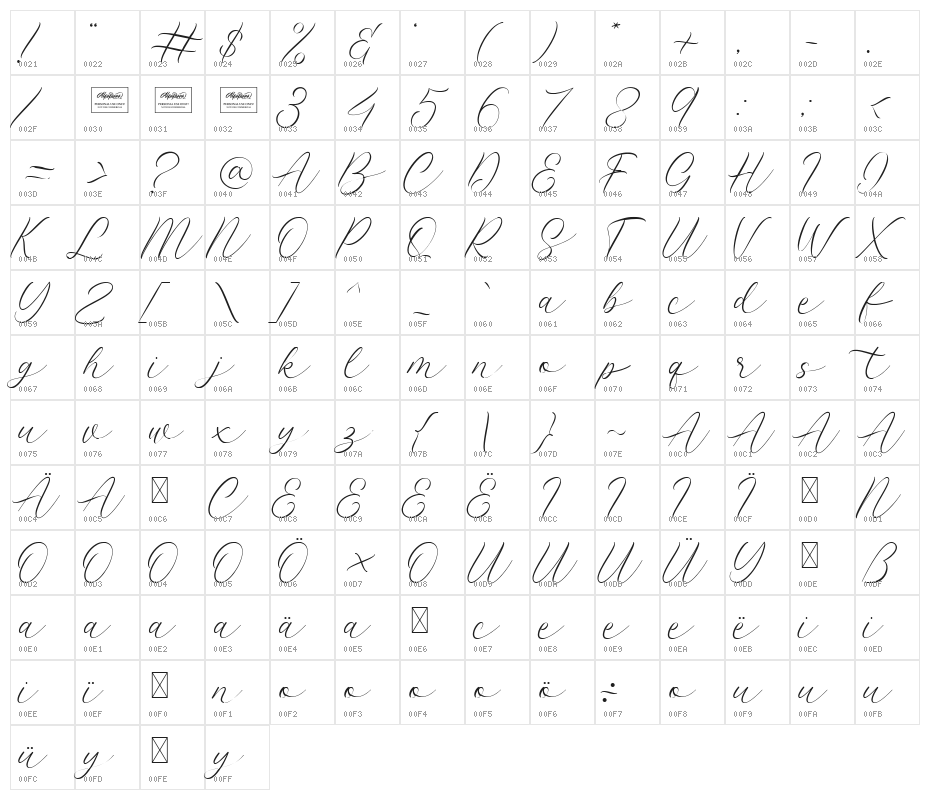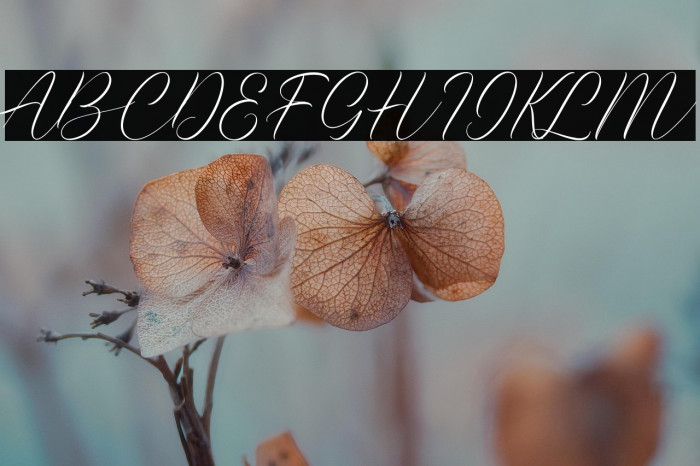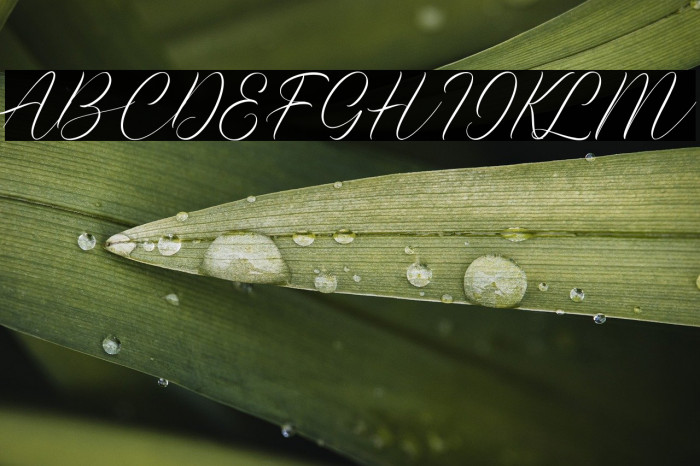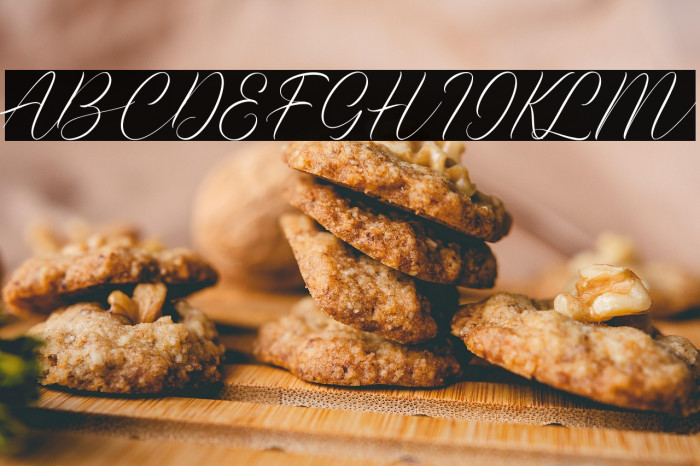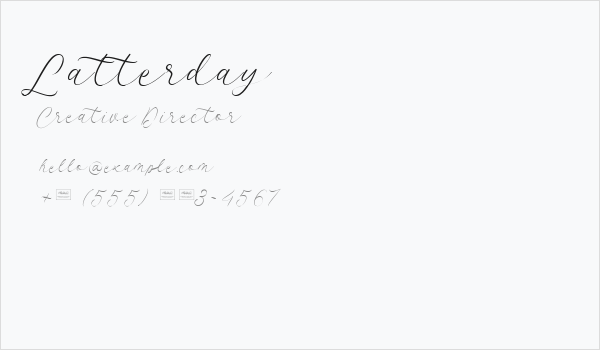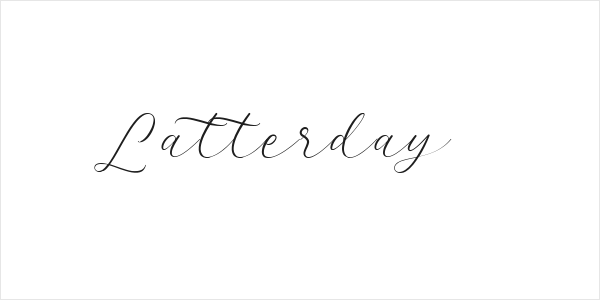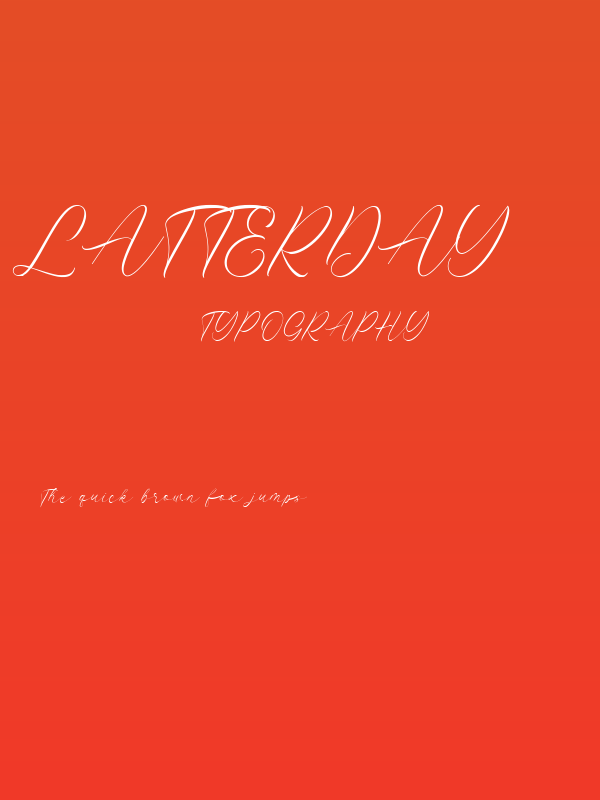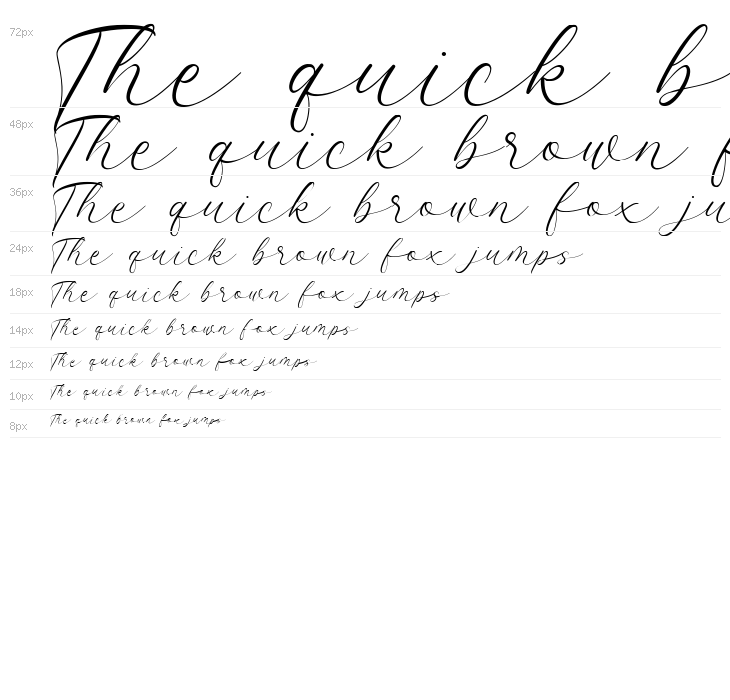
Latterday Font
Latterday Description
This elegant script font features flowing, cursive letterforms with a graceful and sophisticated appearance. The uppercase letters are slightly more ornate, with sweeping curves and delicate loops, while the lowercase letters maintain a consistent fluidity. The numerals are designed to complement the script style, offering a harmonious balance. Special characters are thoughtfully integrated, maintaining the overall aesthetic. This font exudes a sense of refinement and is perfect for projects that require a touch of elegance and class.